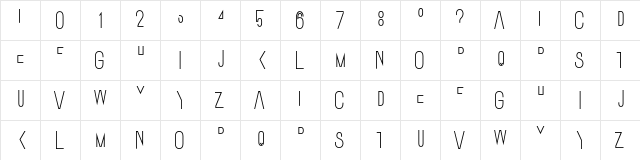
Ostrich Sans Stack Regular
| Foundry | Tyler Finck |
| Designer | Tyler Finck |
Design Context for Ostrich Sans Stack Typeface
Ostrich Sans Stack offers clean, dependable letterforms without strong stylistic allegiance, making it a practical choice for designers who need flexibility.
Pro Tip: Use Ostrich Sans Stack in both headline and body roles to test its range before committing to a single application.